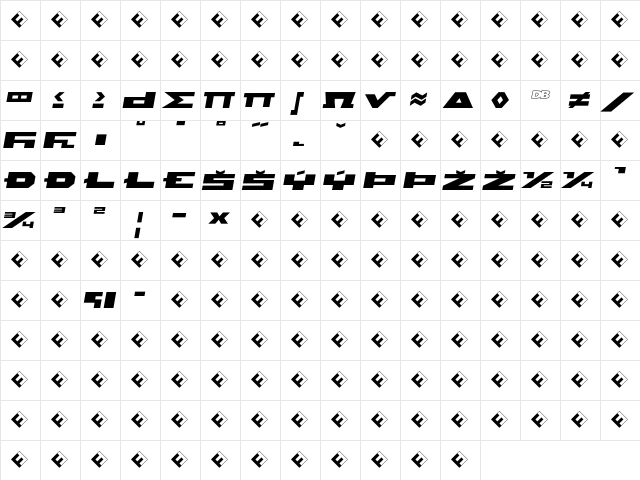
Beekman-SquareItalicExpert Regular
Design Context for Beekman-SquareItalicExpert Typeface
Beekman-SquareItalicExpert takes a measured approach to typography — its balanced proportions and neutral character make it a reliable workhorse for both digital and print work. The slanted form adds forward momentum and visual energy.
Pro Tip: Use Beekman-SquareItalicExpert for emphasis, pull quotes, and subheadings where its slanted energy can add rhythm to the layout.